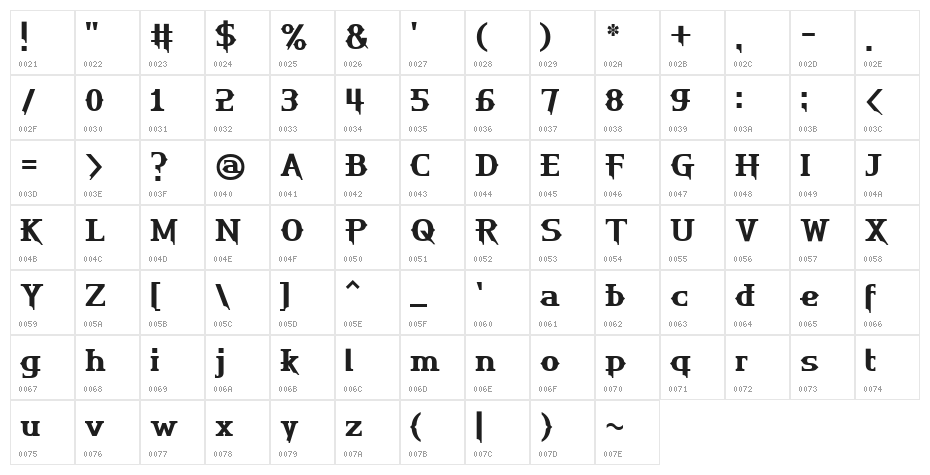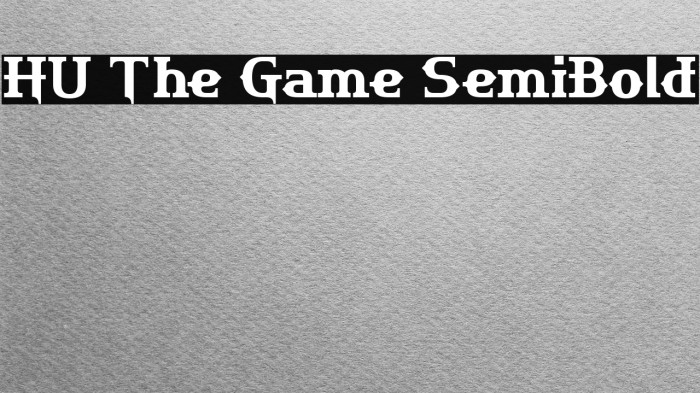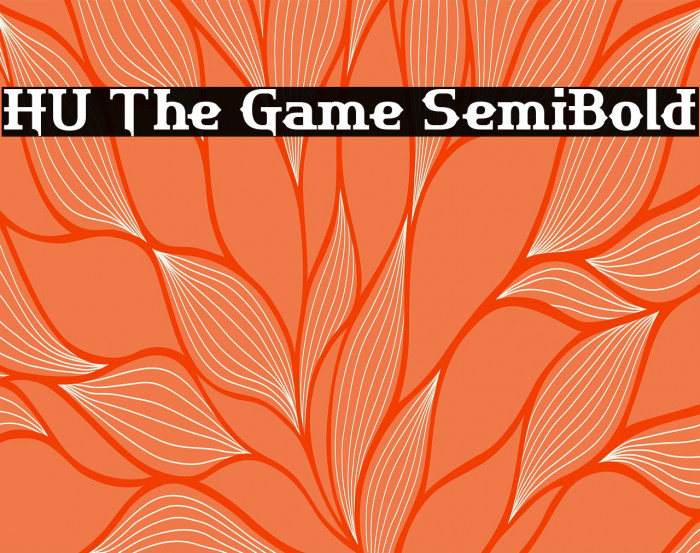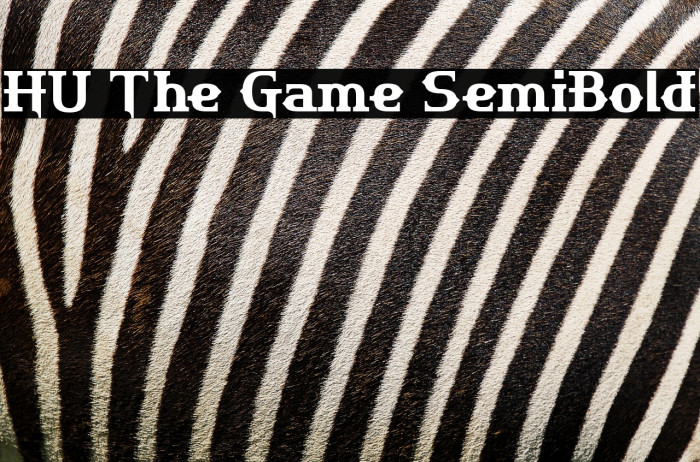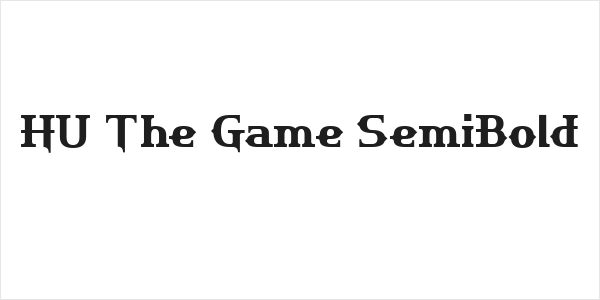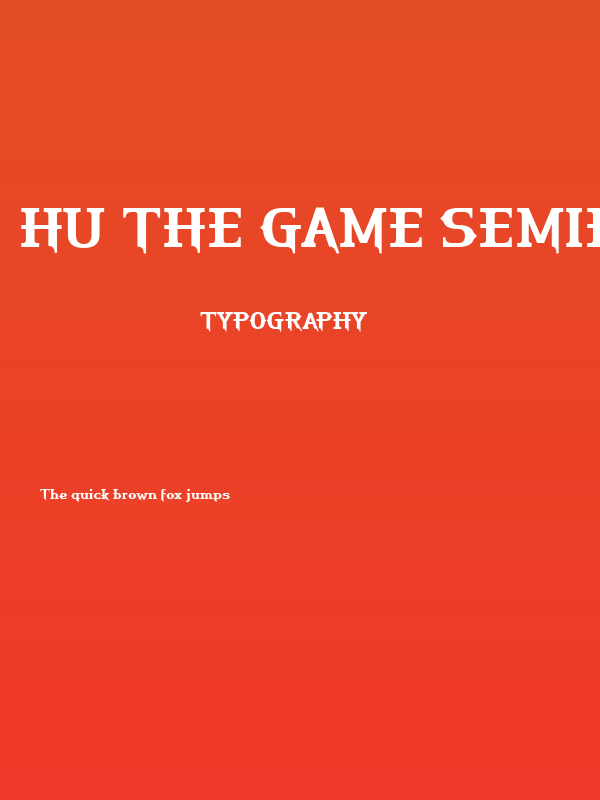
HU The Game SemiBold Font
HU The Game SemiBold Description
This font features a bold and striking design with a modern twist, characterized by sharp, angular serifs and a strong presence. The uppercase letters are particularly prominent, with a distinctive geometric style that adds a sense of strength and stability. The lowercase letters maintain a consistent weight, providing a balanced appearance. The numerals are equally bold, ensuring readability and impact. Special characters are designed with the same attention to detail, making them stand out. Overall, this font exudes a sense of confidence and authority, suitable for projects that require a commanding visual presence.
| Proposed Projects | Ideal for branding, headlines, posters, and any design that requires a bold, authoritative look. |